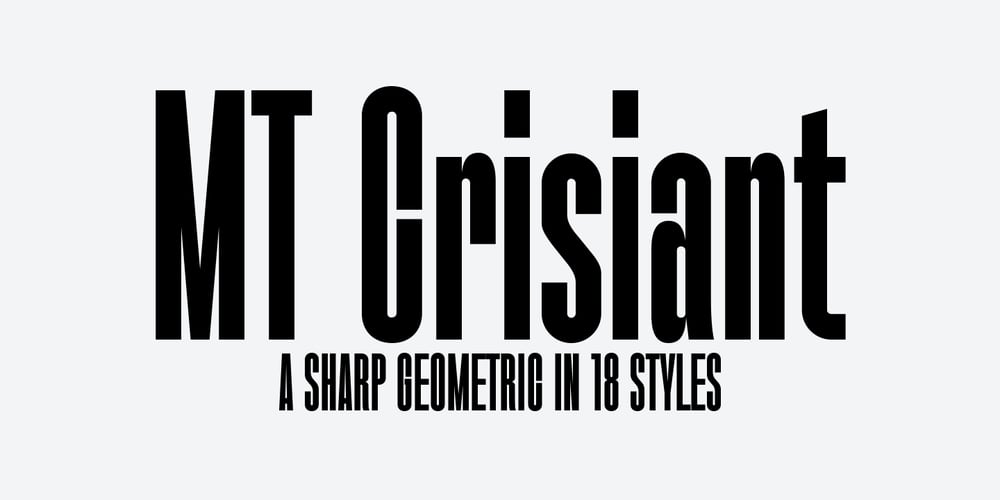
MT Crisiant
MT Crisiant font
MT Crisiant Font Family was designed by Candi Erwanto and published by MysticalType. MT Crisiant contains 18 styles and family package options. MT Crisiant is a new, minimalistic, elegant, and professional font. This font is suitable for making, titles, taglines, logos, and products to be printed.MT Crisiant is a sans serif typeface that is a blend of geometric and humanist. Make it more interesting and dynamic. MT Crisiant is designed for display and body text. Maximizes thickness while maintaining balance in each shape. This makes it perfect for all kinds of creative projects.The MT Crisiant comes with 18 weights and tilts to match.